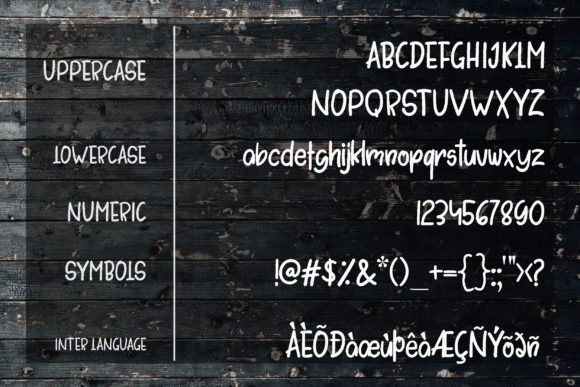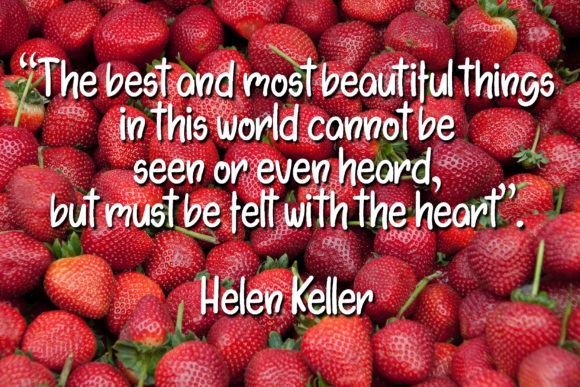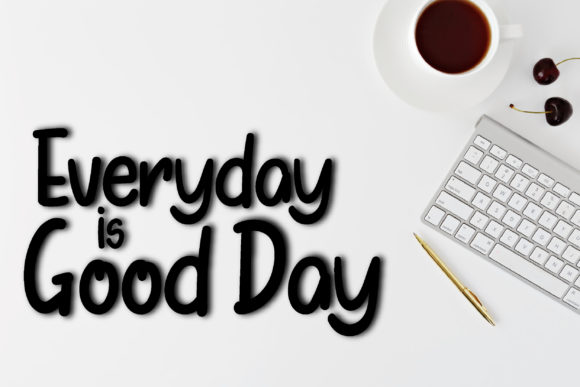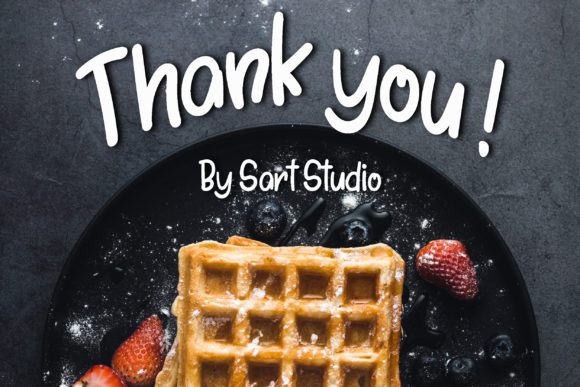
Introduction to Dellicious Strawberry Font
Dellicious Strawberry simplifies elegance into one truly outstanding handwritten font.
Dellicious Strawberry Font offers exceptional quality and versatility, making it a valuable addition to your design toolkit. Whether you’re creating for personal projects or commercial use, Dellicious Strawberry Font delivers professional results.